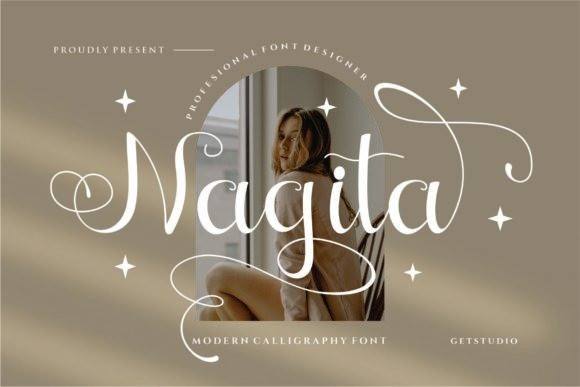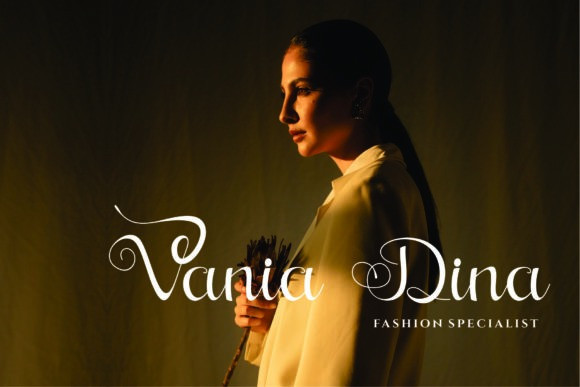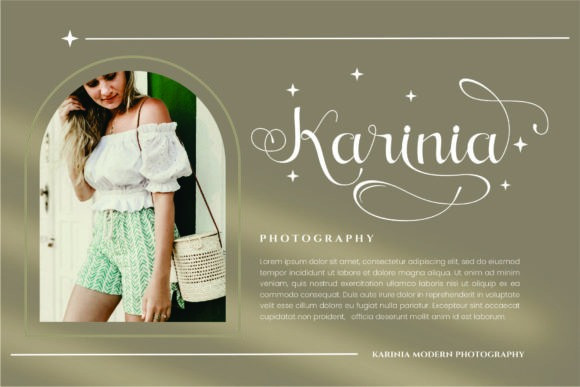
Nagita Font
Nagita is a dainty and flowing script font. Add this romantic and lovely looking font to each of your love letters, wedding invitations or favorite design ideas, and you will be astounded by the outcome.